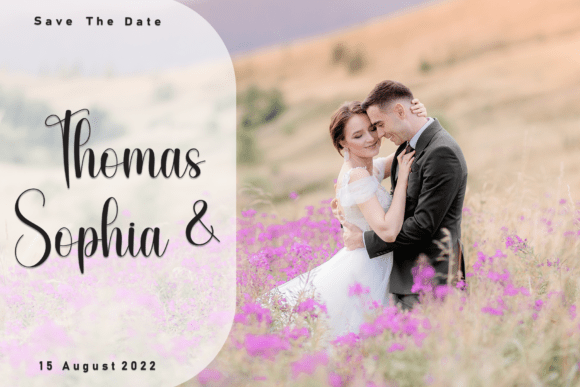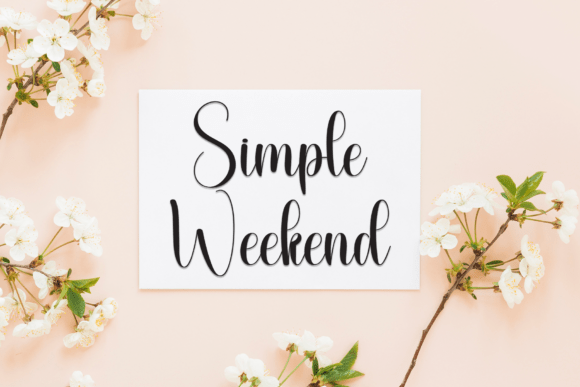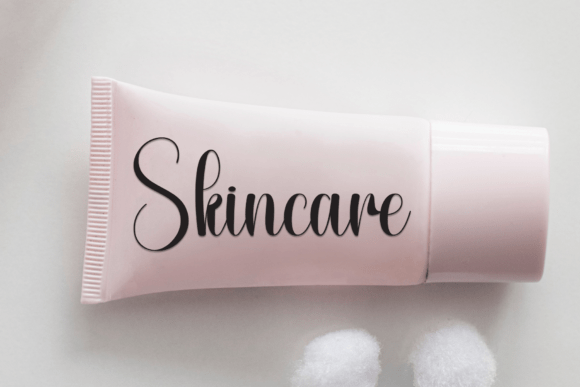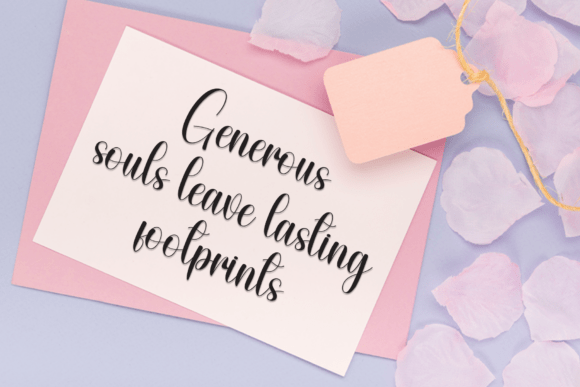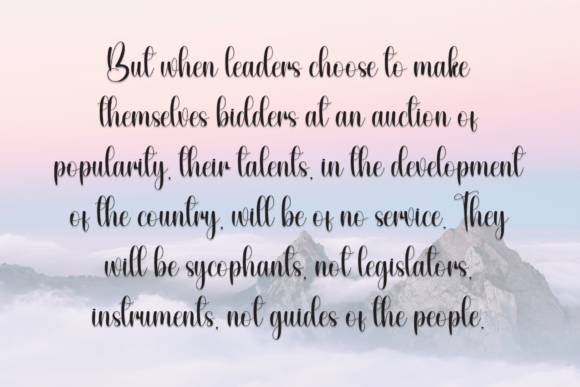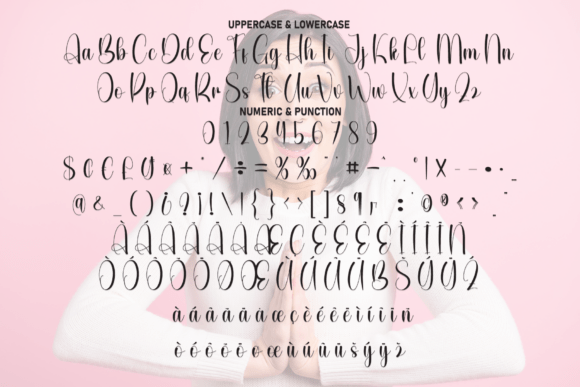
Aunty Greeting Font: The Perfect Choice for Heart-Warming Designs
Are you looking for a font that embodies sweetness and friendliness? Do you want to add a delightful twist to your designs? Look no further than the Aunty Greeting Font, a charming handwritten display font that is perfect for crafting heart-warming wedding invitations, personalized cards, and other design projects.
What is Aunty Greeting Font?
Aunty Greeting Font is a unique and irresistibly charming handwritten display font that is designed to bring a touch of warmth and friendliness to your designs. With its cute and playful vibe, this font is perfect for designers and crafters who want to create heart-warming and delightful designs.
Characteristics of Aunty Greeting Font
The Aunty Greeting Font has several characteristics that make it stand out from other fonts. Some of its key features include:
- Handwritten display font: Aunty Greeting Font is a handwritten display font that is designed to be used for headings and titles.
- Cute and playful vibe: This font has a cute and playful vibe that makes it perfect for designs that require a touch of whimsy and fun.
- Sweet and friendly: The Aunty Greeting Font embodies sweetness and friendliness in each stroke, making it perfect for heart-warming designs.
Uses of Aunty Greeting Font
The Aunty Greeting Font is a versatile font that can be used for a variety of design projects. Some of the most popular uses of this font include:
- Wedding invitations: This font is perfect for crafting heart-warming wedding invitations that will make your loved ones feel special.
- Personalized cards: The Aunty Greeting Font is also great for creating personalized cards for birthdays, anniversaries, and other special occasions.
- Design projects: This font can be used for any design project that requires a touch of whimsy and fun, such as brochures, flyers, and posters.
Benefits of Using Aunty Greeting Font
There are several benefits to using the Aunty Greeting Font for your design projects. Some of the most significant advantages include:
- Unique and eye-catching: This font is unique and eye-catching, making it perfect for designs that require a touch of personality.
- Easy to read: The Aunty Greeting Font is easy to read, even at small sizes, making it perfect for designs that require a lot of text.
- Versatile: This font is versatile and can be used for a variety of design projects, from wedding invitations to brochures.
Tips for Using Aunty Greeting Font
Here are some tips for using the Aunty Greeting Font effectively in your design projects:
- Use it for headings and titles: This font is designed to be used for headings and titles, so use it to add a touch of personality to your designs.
- Pair it with other fonts: The Aunty Greeting Font can be paired with other fonts to create a unique and eye-catching design.
- Experiment with colors and textures: This font can be used with a variety of colors and textures to create a design that is truly unique.
In conclusion, the Aunty Greeting Font is a charming handwritten display font that is perfect for crafting heart-warming wedding invitations, personalized cards, and other design projects. With its cute and playful vibe, this font embodies sweetness and friendliness in each stroke, making it perfect for designers and crafters who want to add a delightful twist to their designs.
Whether you’re a designer or crafter, the Aunty Greeting Font is a great choice for any project that requires a touch of whimsy and fun. So why not give it a try and see how it can add a touch of personality to your designs?